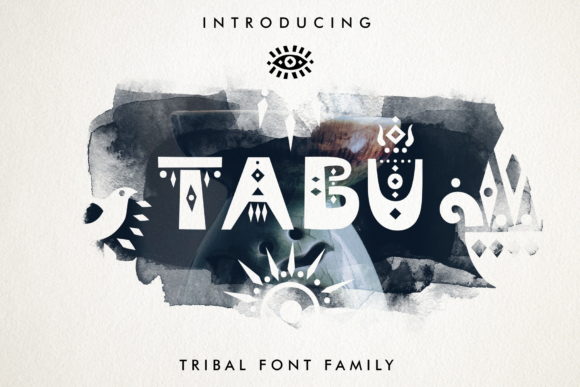
Discover Tabu, a display font family that'll ignite your creativity. Born from the imagination of struvictory, this collection offers three mesmerizing styles: decorative, black, and symbols, designed to intertwine flawlessly for captivating designs.
Experience the magic of Tabu, a display typeface that dances across your screen with grace and allure. Its decorative style adds an intricate touch to your projects, while the bold black version exudes sophistication and commands attention. Let your designs reach new heights with the symbolic style, a collection of captivating icons that tell stories through visuals.
Dive into a world where elegance and innovation collide. Tabu is a font family that redefines boundaries, pushing the limits of creativity. Whether you're a seasoned designer or just starting your journey, Tabu will unleash your inner artist and transform your designs into masterpieces. Let Tabu ignite your passion for typography and elevate your projects to new heights.
Open the door to endless possibilities with Tabu, a treasure trove of typographic wonders. Craft logos that leave a lasting impression, captivate audiences with eye-catching social media graphics, or design stunning invitations that reflect your unique style. Tabu is your gateway to a world of visual splendor, where your imagination knows no bounds.
Welcome to the world of Tabu, where boldness meets sophistication, where creativity takes center stage. Unleash the power of this extraordinary font family and embark on a journey of typographic exploration. Let Tabu be your guide as you transform your designs into works of art, leaving a lasting impression on your audience.